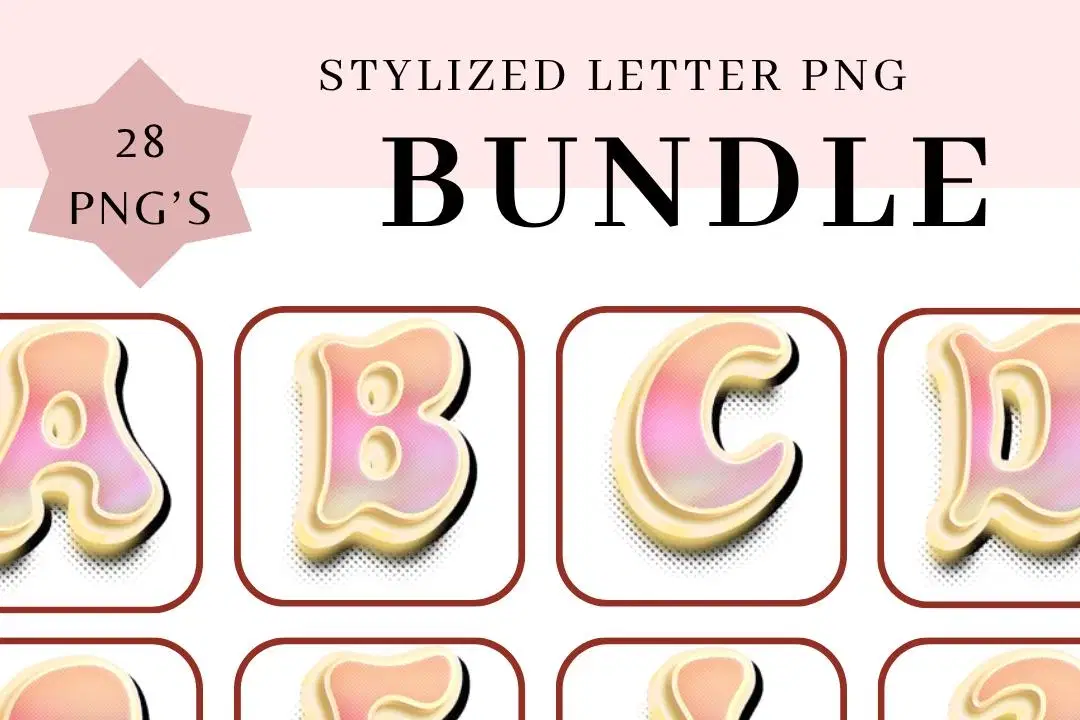
Rose Gold Outline Font Clip Art: Retro Alphabet PNG Bundle
Add a vibrant and stylish touch to your creative projects with this Rose Gold Outline Font Clip Art Bundle, featuring all 28 letters and symbols (! and ?) of the alphabet in a sleek gold glowing outline design. Each letter is crafted with a retro, stylized look that combines elegance and playfulness, making them perfect for digital scrapbooking, invitations, posters, branding, and social media graphics. Delivered as high-quality PNG files with transparent backgrounds, these alphabet letters are easy to layer and customize for a variety of design needs.
Features:
Includes 26 stylized gold outline letters (A-Z) + 2 symbols (! ?)
Retro and elegant outline font style suitable for both digital and print projects
Bring a fresh pop of color and sophistication to your typography with this unique rose gold outline alphabet set.